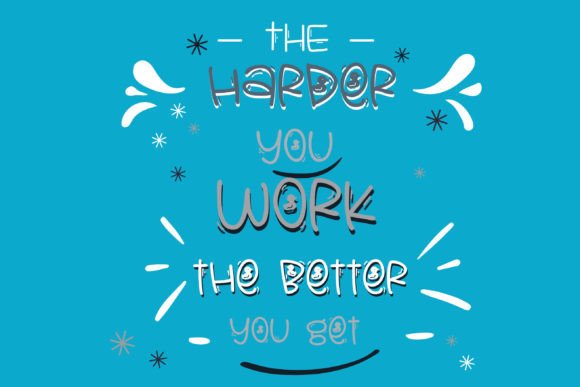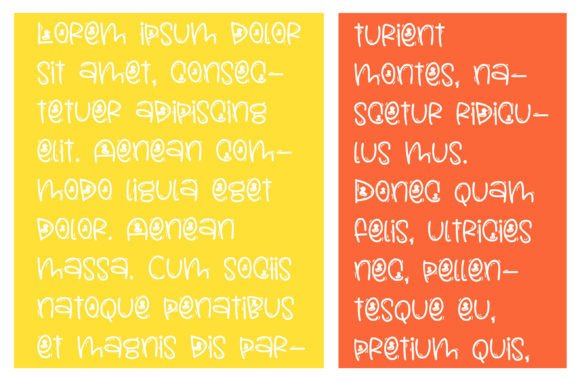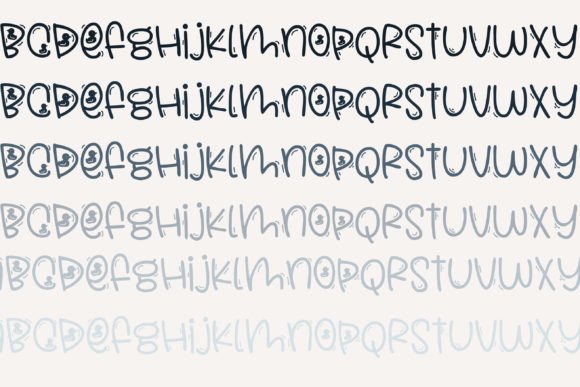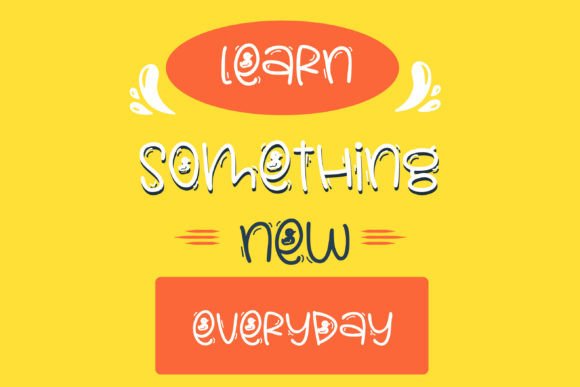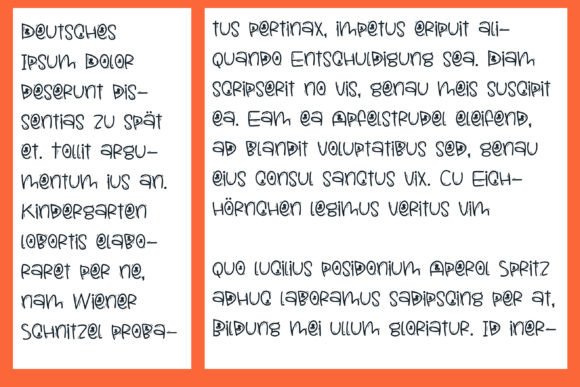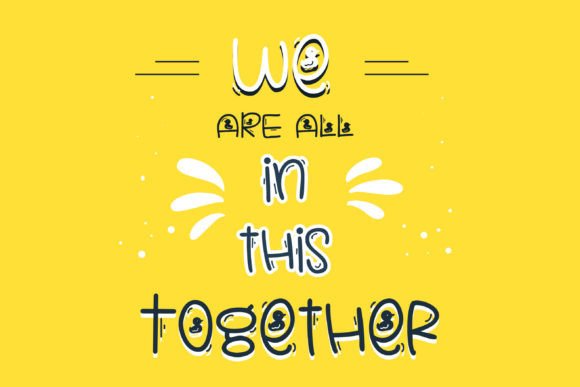
When Design Meets Playfulness
Have you ever been working on a project and suddenly, a spark of creativity hits you? Maybe it’s the perfect combination of colors or the quirky font that makes your design pop. For me, it was the moment I stumbled upon the Baby Duckling Font, and I knew I had to share it with the world.
With its playful, uneven letters, the Baby Duckling Font is the perfect addition to any design that needs a touch of fun and eccentricity. Whether you’re creating a children’s book, a birthday card, or a social media graphic, this font brings a sense of joy and mischief to any project.
For designers, the Baby Duckling Font is a valuable asset, offering a unique way to express their creativity and add personality to their designs. Its quirky charm is sure to bring a smile to the viewer’s face, making it a must-have in any designer’s toolkit.
Baby Duckling Font Key Features
- Unique Characteristics: Hand-drawn illustrations and playful, whimsical design
- Font Style: Casual, informal, and child-friendly
Designer Review: Baby Duckling Font
First off, I have to say that I love the playful, whimsical feel of the Baby Duckling Font ✨. The rounded edges and childlike charm make it perfect for designs that need a touch of innocence and fun. I’ve seen it used in children’s book covers, nursery decorations, and even greeting cards, and it always adds a certain je ne sais quoi. The font is also surprisingly versatile, working well in a variety of sizes and combinations with other fonts.
However, there are a few limitations to consider ⚠️. One major issue is the font’s lack of consistency across different platforms and devices. I’ve noticed that the font sometimes looks blurry or pixelated on certain screens, which can be a bit distracting. Additionally, the font’s rounded edges can sometimes make it difficult to read, especially in smaller sizes.
- Rounded edges and childlike charm
- Playful, whimsical feel
- Works well in various sizes and combinations with other fonts
- Perfect for designs that need a touch of innocence and fun
Limits:
- Lack of consistency across different platforms and devices
- Can look blurry or pixelated on certain screens
- Rounded edges can make it difficult to read in smaller sizes
For optimal results, use the Baby Duckling Font in conjunction with playful, whimsical graphics and illustrations.
Experiment with different font sizes and styles to create visual interest and emphasize key messages.
The Baby Duckling Font is ideal for:
- Children’s book covers and illustrations.
- Party invitations and decorations.
- Branding and marketing materials for family-friendly businesses.
Alternatives to Baby Duckling Font for Designers
The Great Vibes Font is a modern, elegant script font that works well for headings, titles, and short paragraphs. It’s ideal for use in digital media, such as websites, social media, and advertising. It has a more refined and sophisticated look compared to Baby Duckling Font, making it suitable for high-end designs.
Comparison to Baby Duckling Font: Great Vibes Font is more polished and less playful, making it a better choice for formal designs. It’s also more versatile and can be used for a wide range of projects.
The Carolyna Pro Font is a luxurious, elegant script font that’s perfect for high-end designs, such as fashion, luxury brands, and fine art. It’s ideal for use in print media, such as magazines, catalogs, and posters. It has a more luxurious and sophisticated look compared to Baby Duckling Font, making it suitable for premium designs.
Comparison to Baby Duckling Font: Carolyna Pro Font is more refined and less playful, making it a better choice for formal designs. It’s also more luxurious and sophisticated, making it a great choice for high-end brands.
Q: Can I customize the Baby Duckling Font to fit my specific design needs?
Yes, the Baby Duckling Font is a highly customizable font with advanced OpenType features, including ligatures, swashes, and contextual alternates. You can use font editing software or design applications to customize the font and create unique variations that suit your design style.